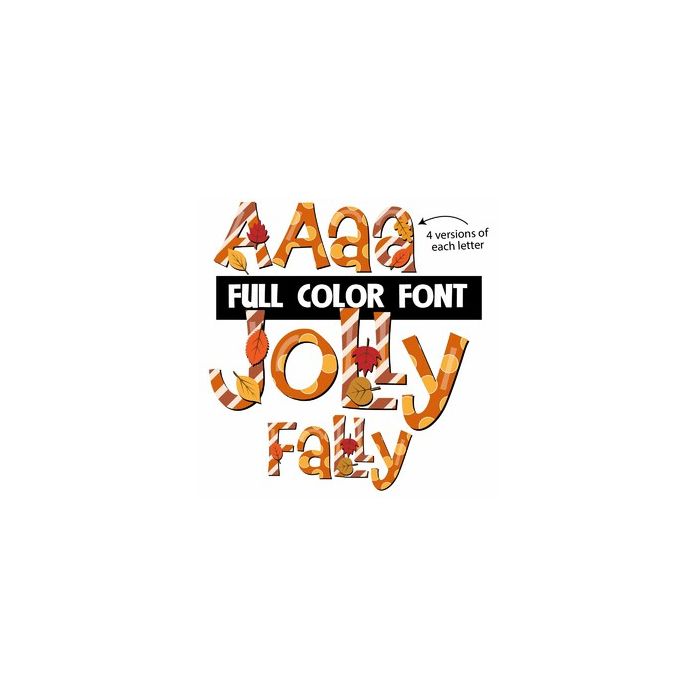
This full-color font features fun, fall-colored patterns and leaves in a whimsical font. There is an upper and lowercase alt case you can access through your system's character map. This font works best for titles, displays, posters and more. Please note color fonts will show as black in non compatible programs. This font type is compatible with Silhouette Studio.